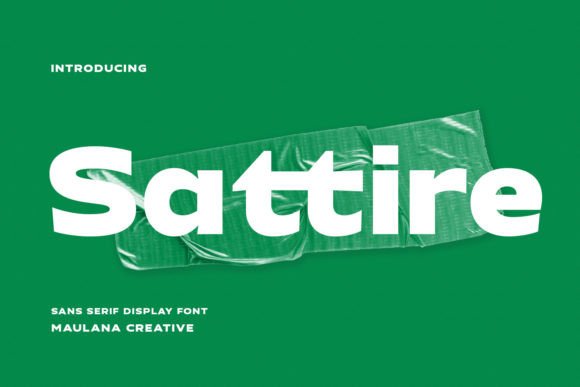
Introducing Sattire Font: A Creative Sans Serif Font Family for Bold and Engaging Designs
**Sattire Font**, a remarkable creation by Maulana Creative, is a casual modern expanded sans display font that brings a touch of boldness and fun to your design projects. With its thick strokes and playful characters, this font is sure to turn heads and leave a lasting impression.
**Captivating and Eye-Catching:**
Sattire Font possesses an inherent charm that captivates audiences and draws their attention. Its distinct design makes it perfect for creating eye-catching logos, social media graphics, movie titles, book covers, and other marketing materials. Whether you're a graphic designer, marketer, or entrepreneur, Sattire Font will elevate your designs to new heights.
**Versatile and Multilingual:**
Sattire Font's versatility extends beyond its visual appeal. Supporting over 100 languages, this font allows you to reach a global audience with your creative projects. Whether you're designing for a local or international market, Sattire Font has you covered.
**Design with Creative Flair:**
Sattire Font is not just a font; it's an invitation to unleash your creativity. With its extensive character set, including ligatures and alternates, Sattire Font offers endless possibilities for creating unique and captivating designs. Let your imagination run wild and let Sattire Font enhance your design vision.
**Perfect for a Range of Projects:**
Sattire Font's versatility makes it suitable for a wide range of projects. From logo design and branding to social media graphics and website design, Sattire Font adds a touch of sophistication and creativity to any project. Its readability and clarity also make it an excellent choice for body text, ensuring your messages are conveyed clearly and effectively.
**Make a Stunning Impact:**
With Sattire Font, you have the power to create stunning designs that resonate with your audience. Its bold strokes and playful characters create a lasting impression, leaving viewers captivated and eager to engage with your content. Unleash the potential of Sattire Font and transform your creative vision into reality.